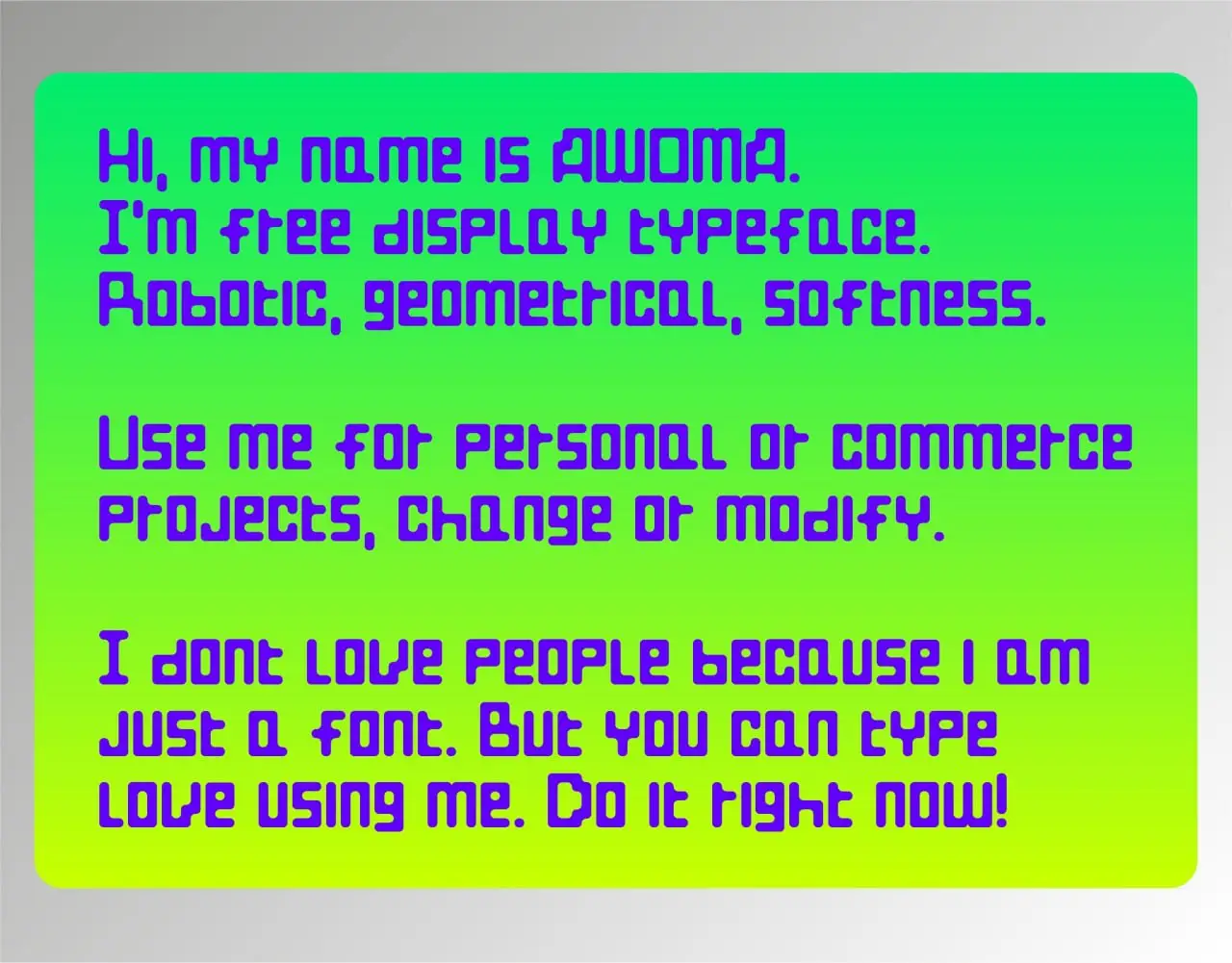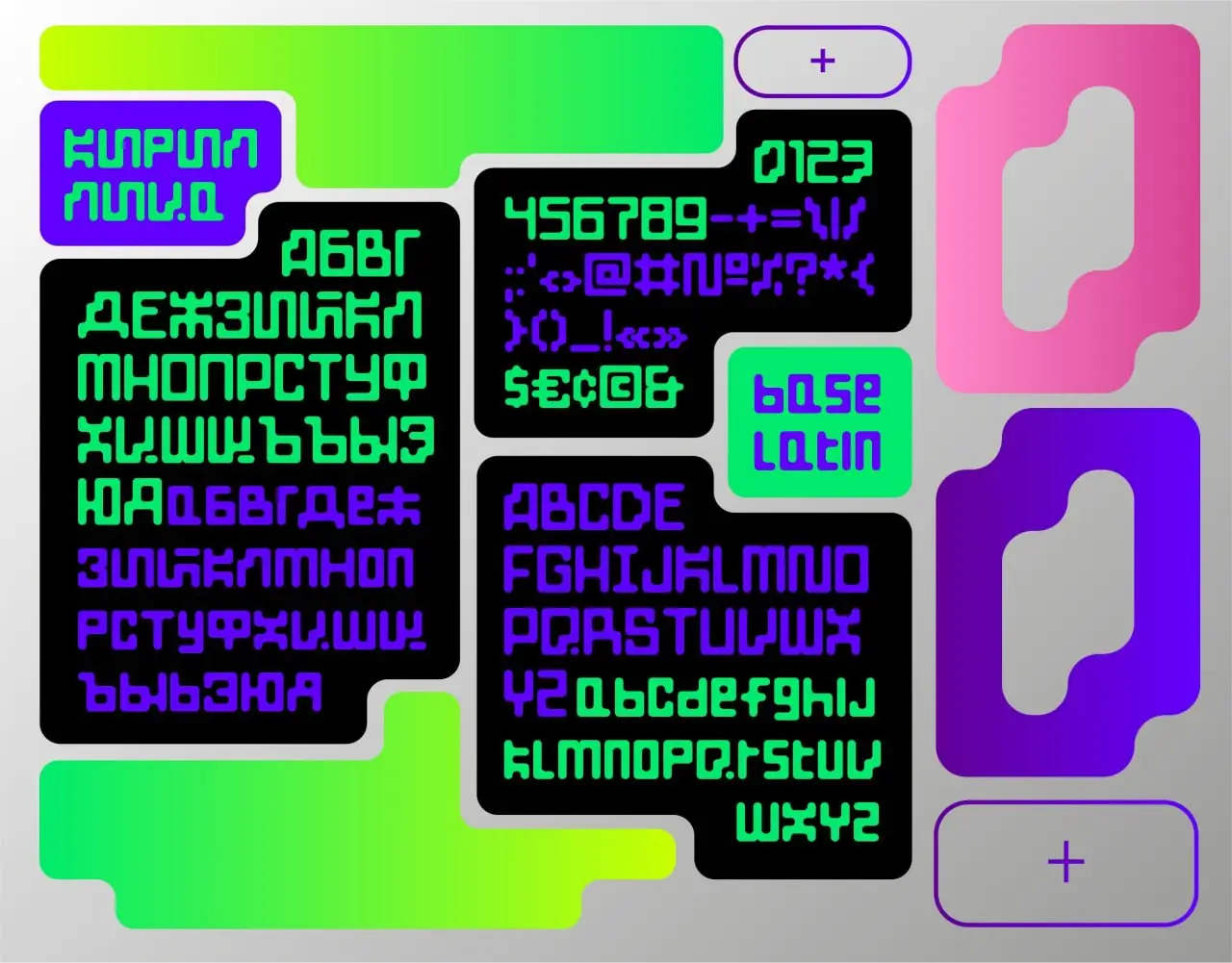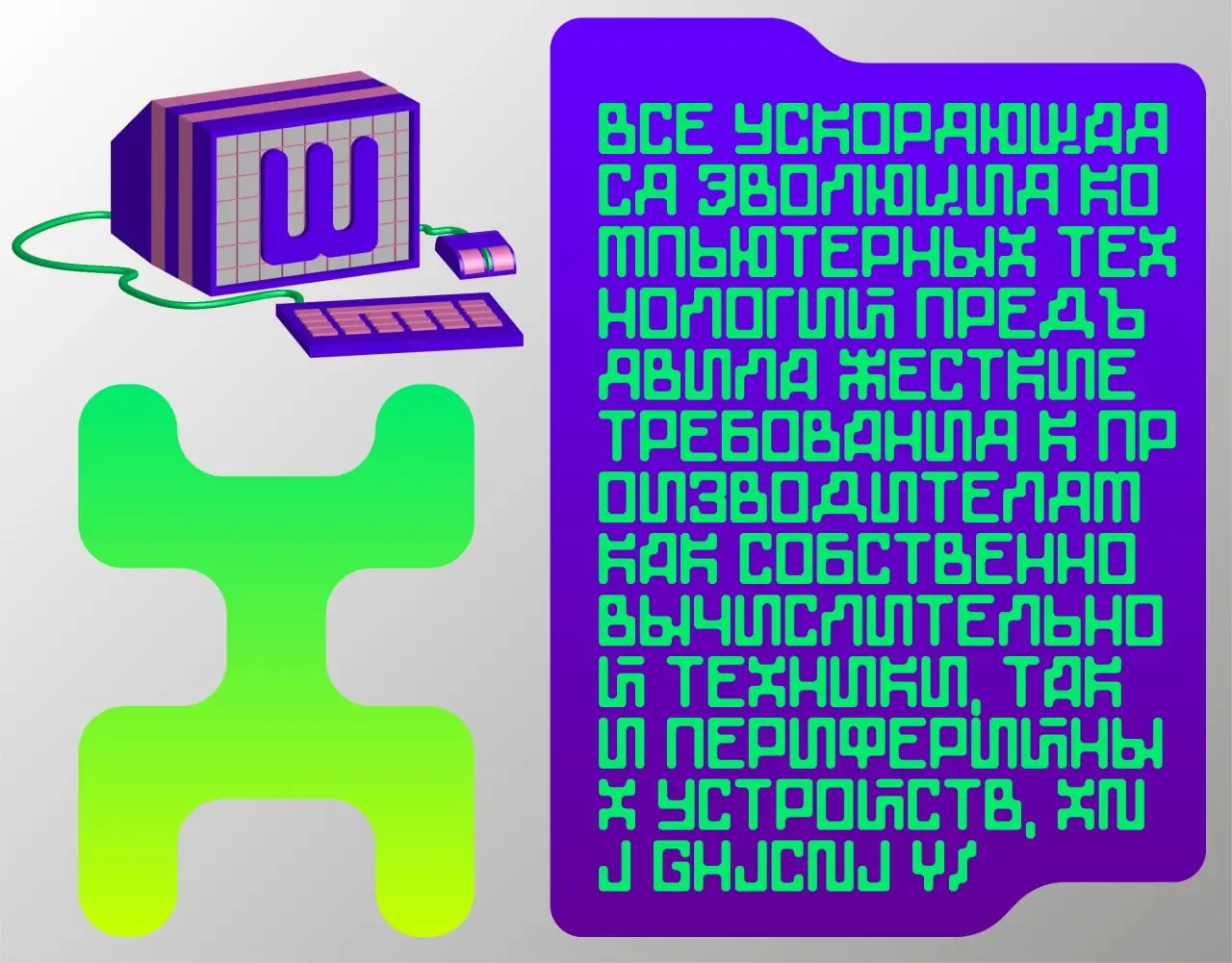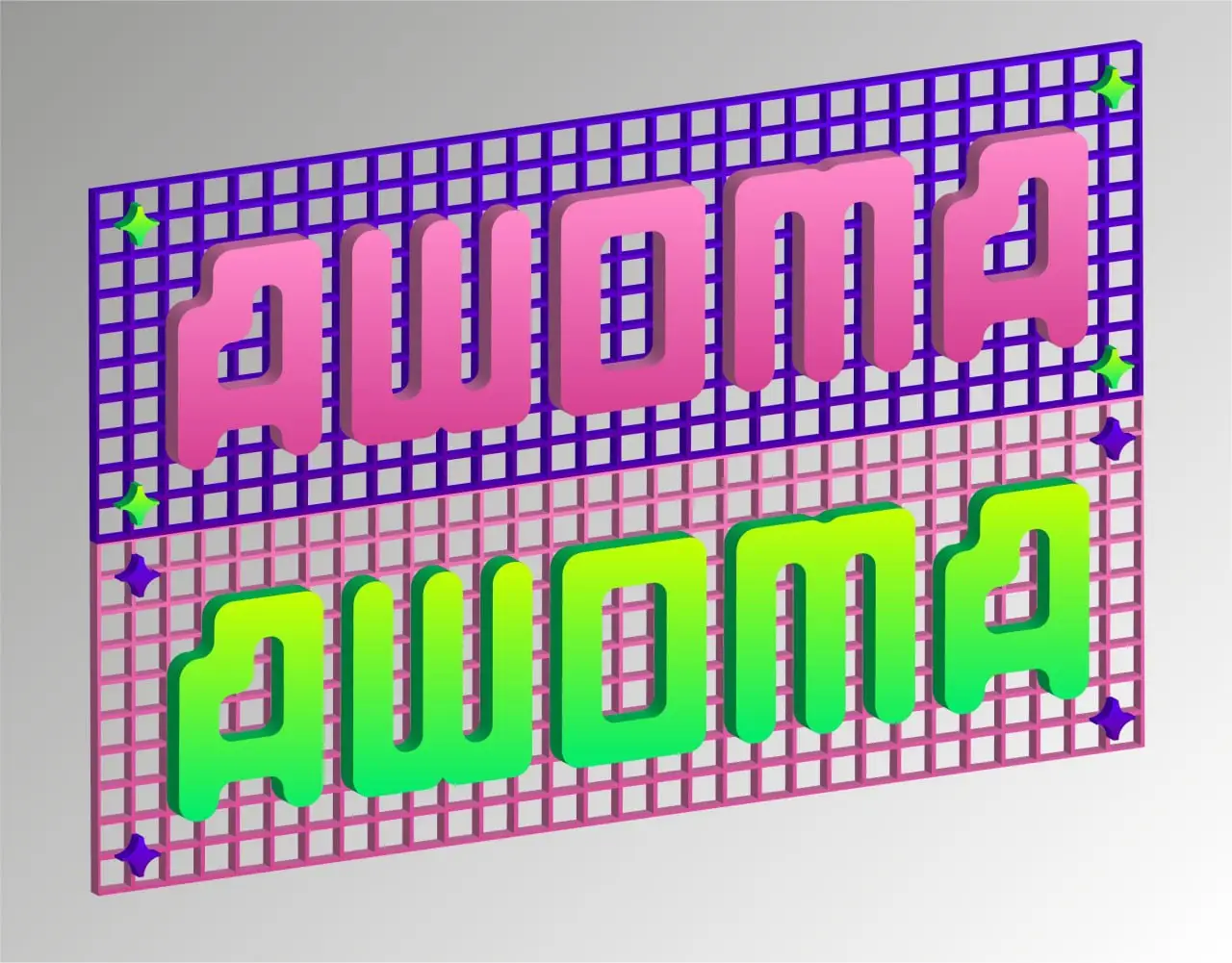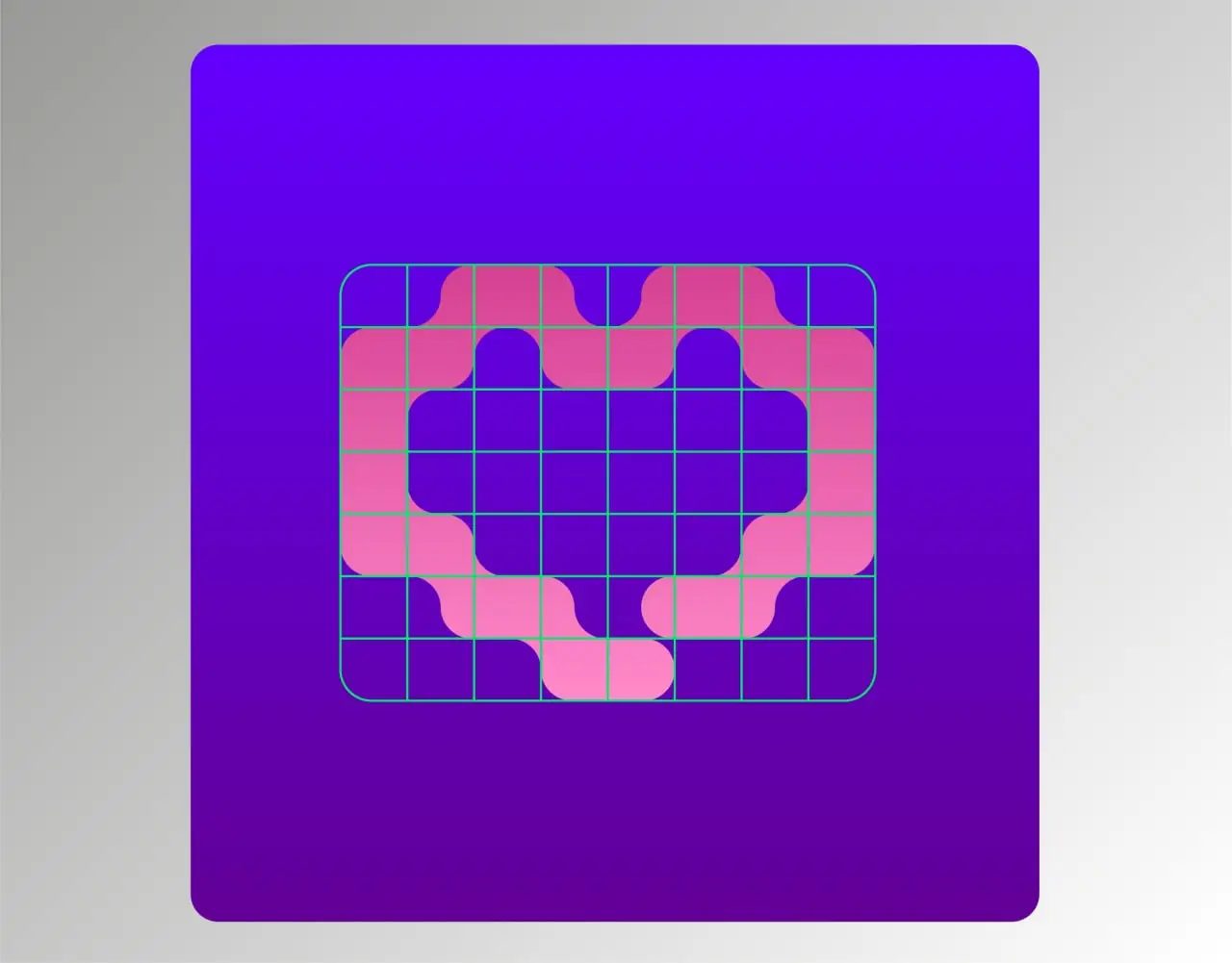
The Awoma Typeface is a versatile and stylish font that includes both Cyrillic and Latin characters, designed by Nicko Weidel. This free font is perfect for a variety of applications, from branding and logos to web and print design.
- Includes both Cyrillic and Latin scripts
- Multiple weights for flexibility in design
- Clean and modern aesthetic
- Weights: Regular, Bold
- Ideal for creating eye-catching logos and branding materials
- Great for use in web design and user interfaces
- Perfect for print projects, including posters and brochures